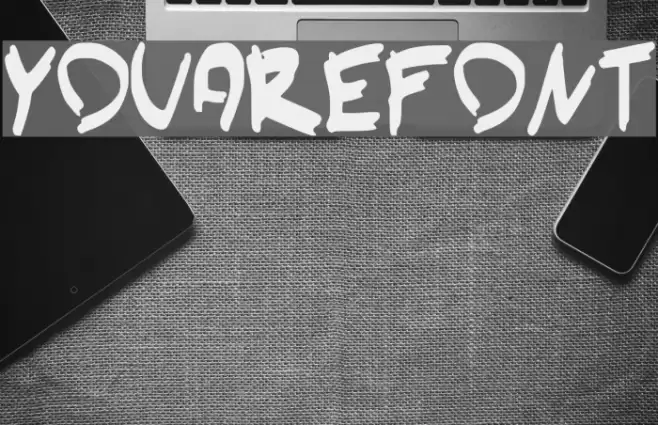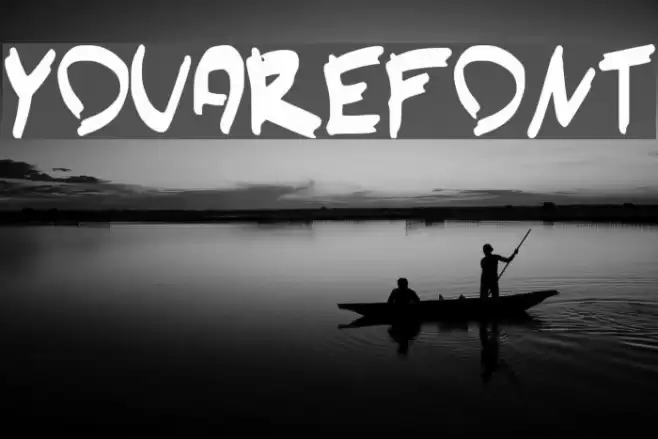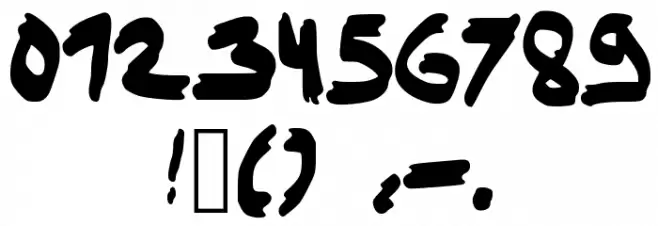
YouAreFont Font
YouAreFont Description
This font features a bold, expressive style with a hand-drawn appearance. The characters are dynamic and slightly irregular, giving a sense of movement and energy. The strokes are thick and varied, creating a high contrast between the thick and thin parts of each letter. This font has a playful and informal vibe, making it suitable for creative and artistic projects. The uppercase and lowercase letters maintain a consistent style, while the numbers and special characters complement the overall design. The font's unique character shapes and bold presence make it stand out, ideal for grabbing attention.
A bold, hand-drawn font with high contrast and dynamic character shapes from Handwritten fonts.
- Proposed Projects: Ideal for posters, album covers, graffiti art, and creative branding projects.